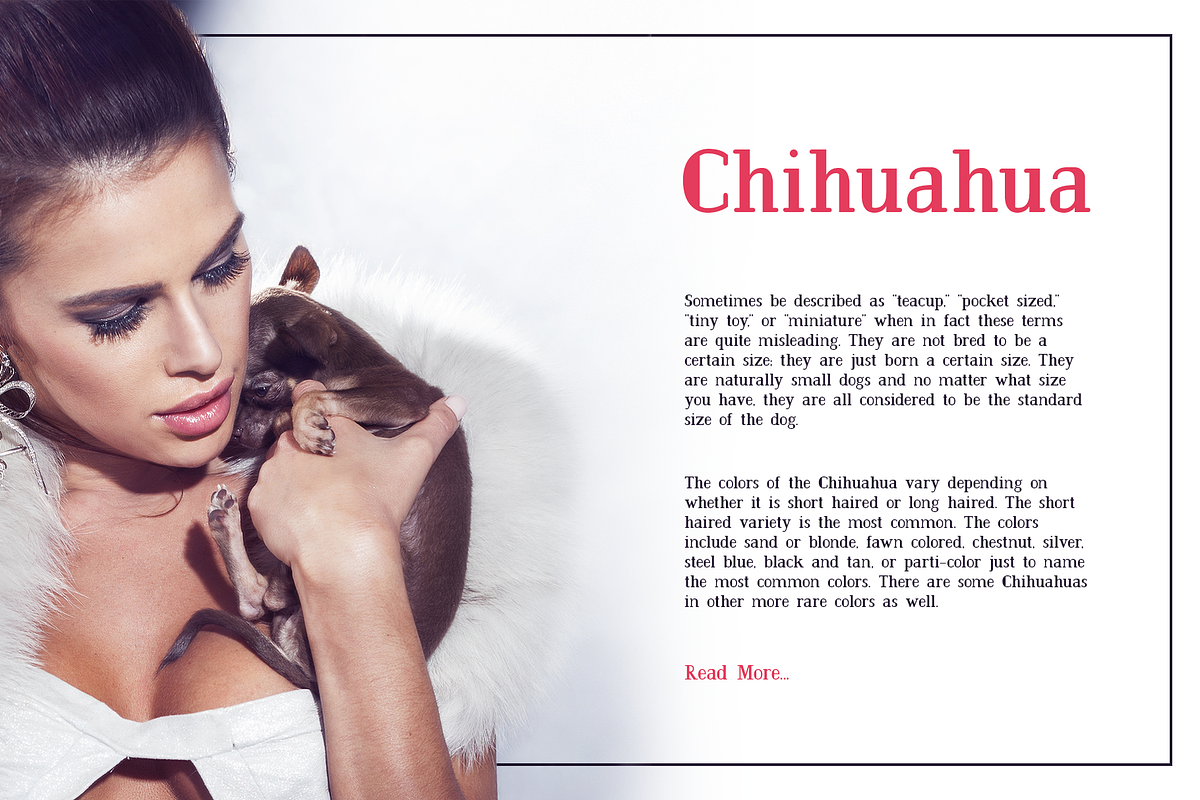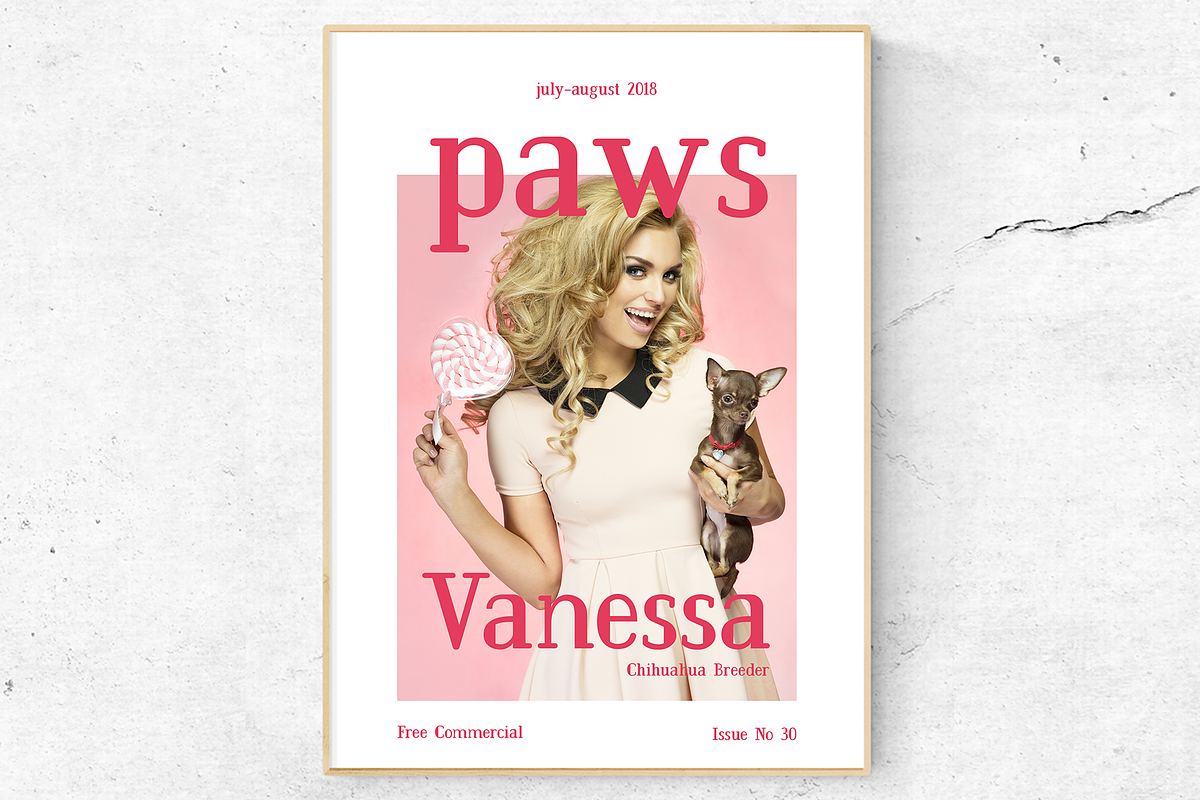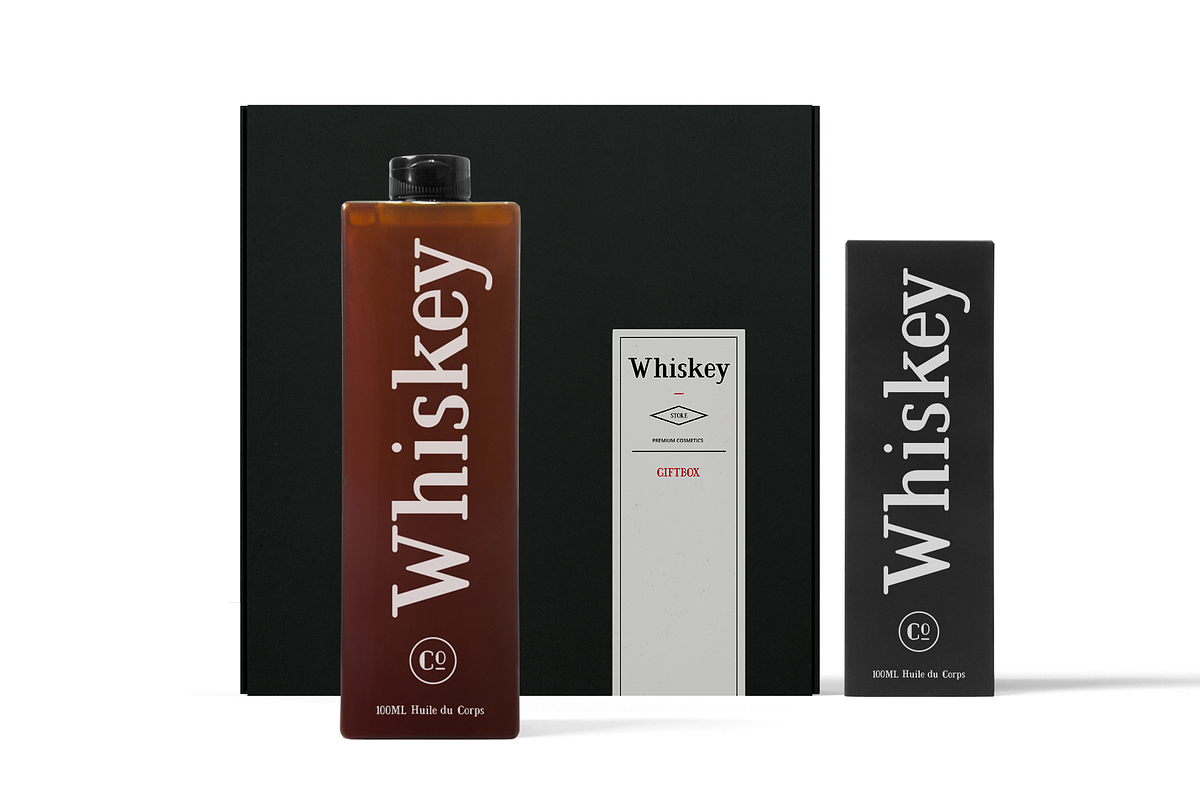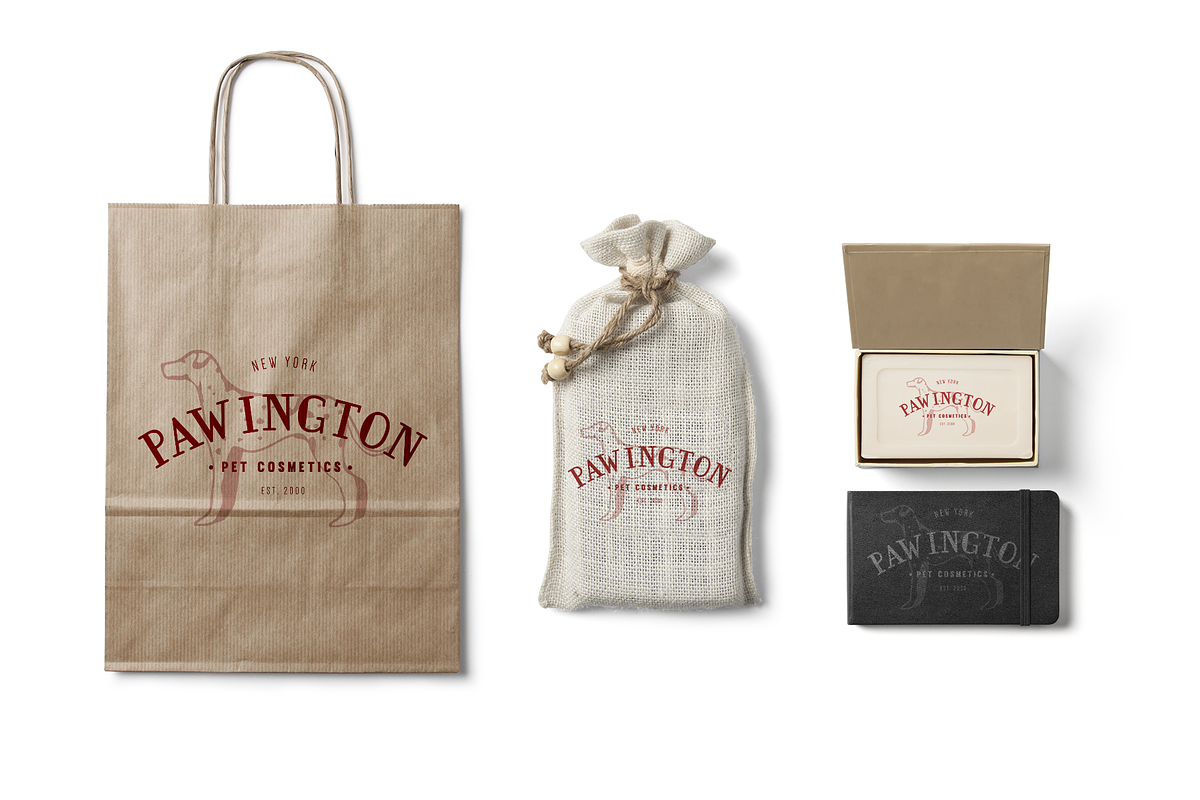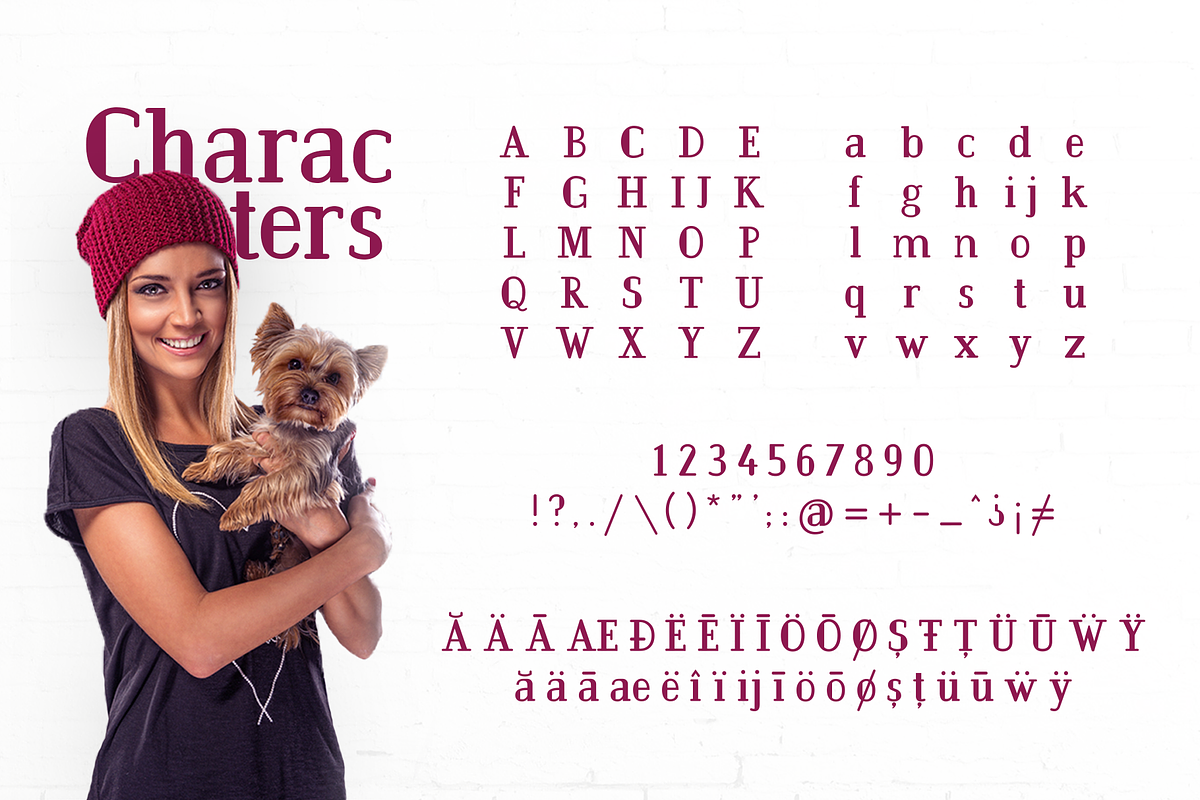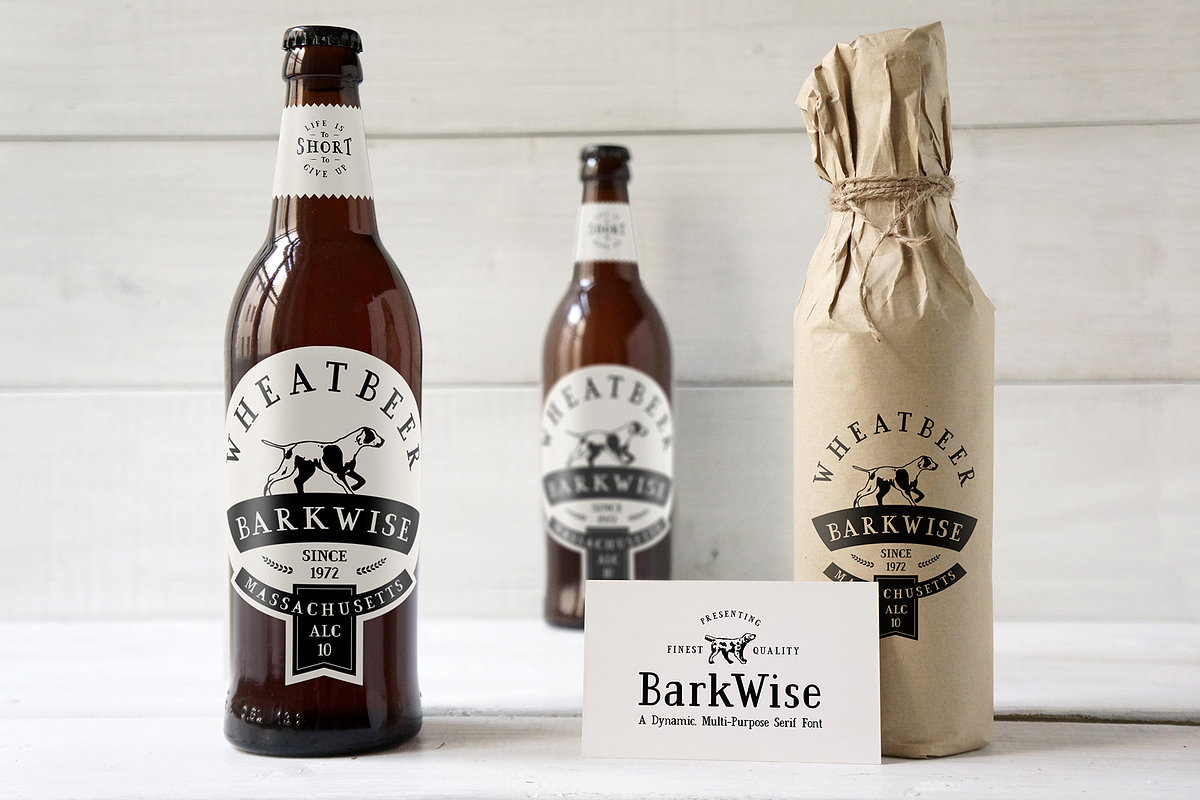
BarkWise - Multi-Purpose Serif Font
BarkWise is a unique and dynamic, multi-purpose, serif font designed with a slightly retro feel. Perfect for many different projects like for example: quotes, blog header, poster, wedding, branding, logo, fashion, apparel, letter, invitation, stationery, etc. It's a versatile typeface that's full of character, and the options that BarkWise provide are only limited by your imagination.
Multilingual support for various languages